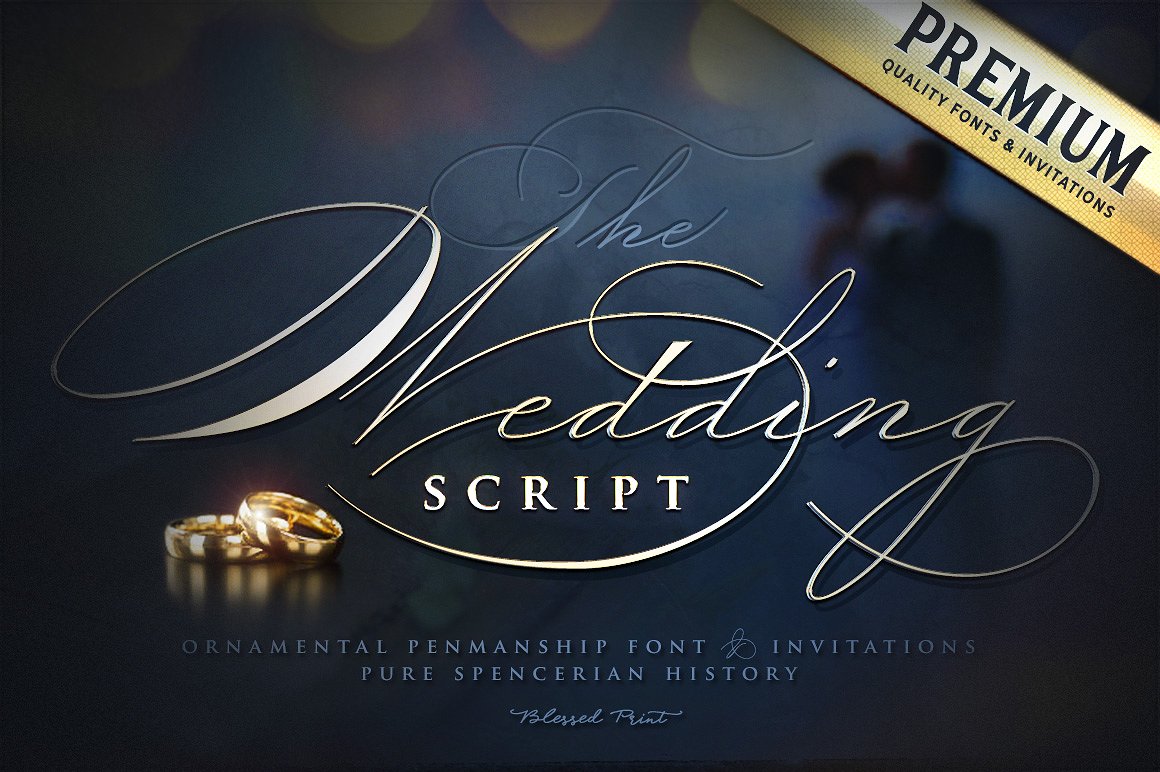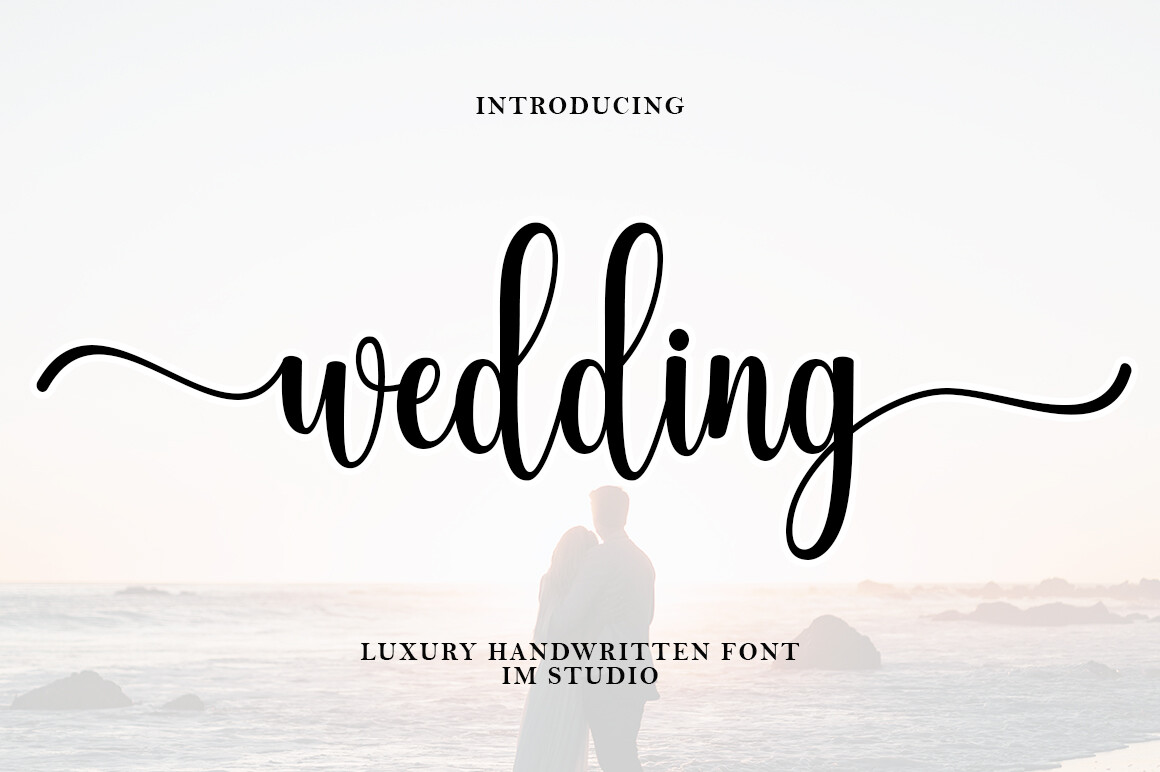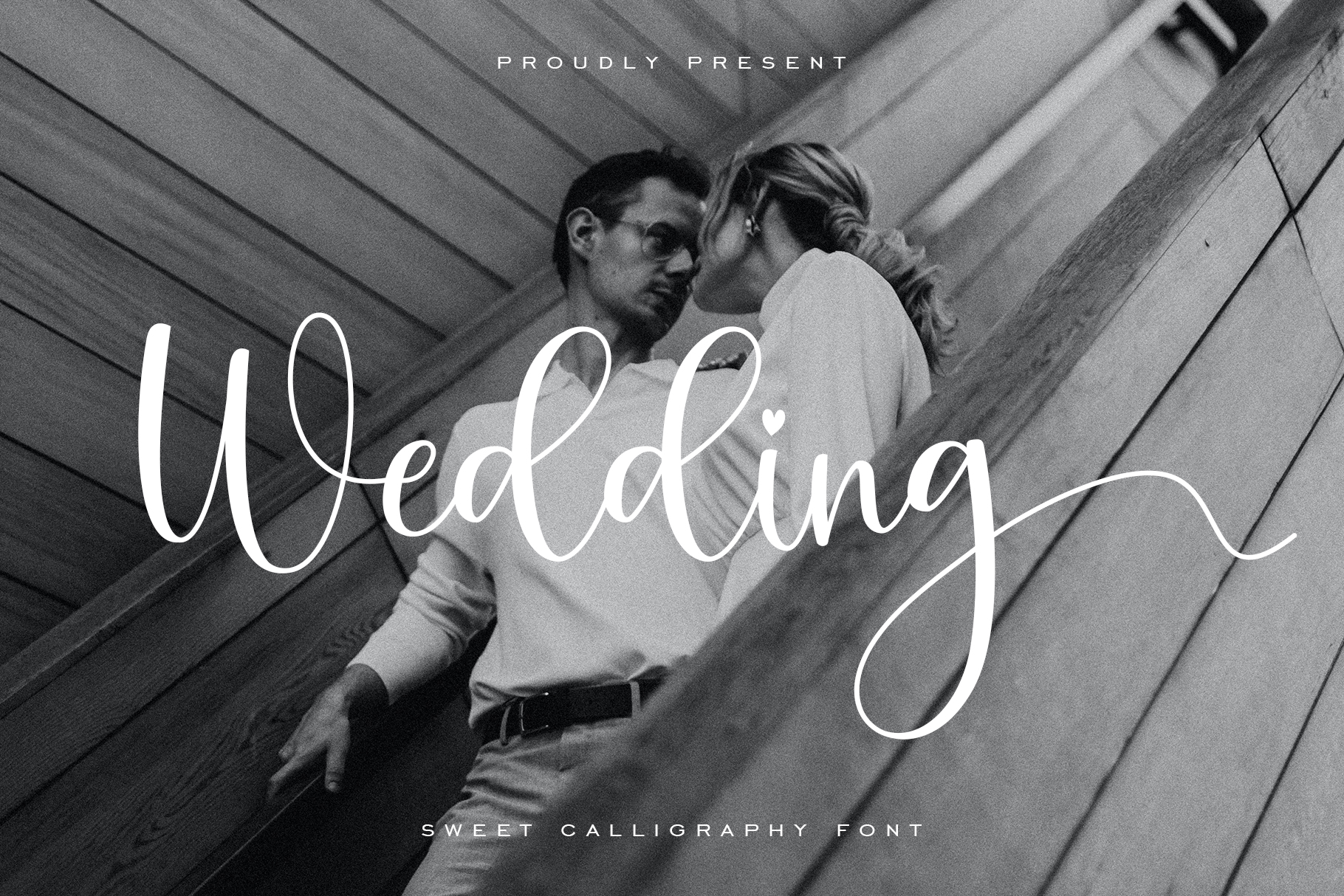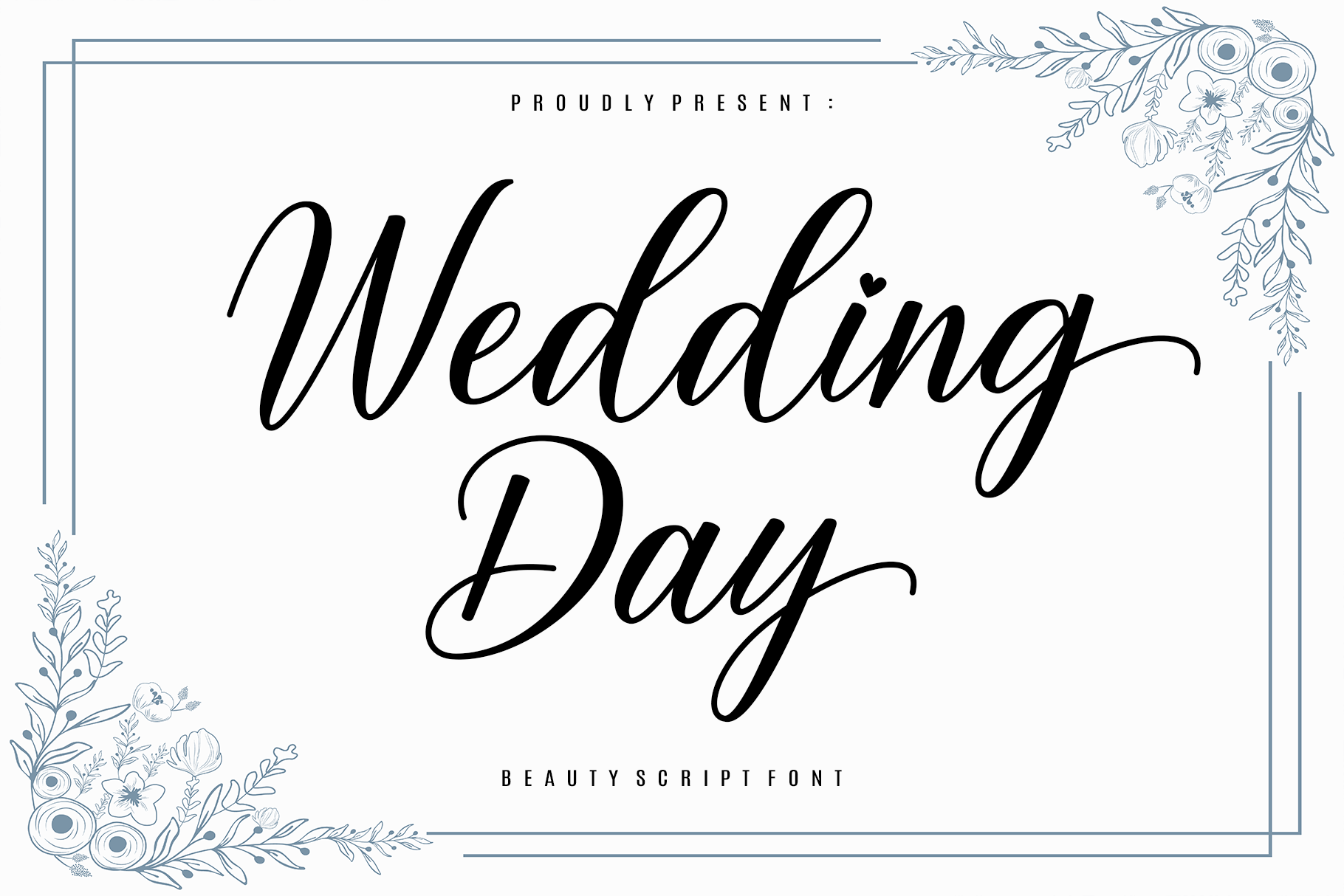
You’ve spent weeks planning every detail of the wedding stationery — the paper stock, the envelope liner, the wax seal color. But the font is still wrong. Too stiff. Too modern. Too generic. Too “template.” The right wedding font transforms everything — a simple “Thank You” becomes a heartfelt keepsake, and a plain invitation becomes something guests actually keep.
The problem is that most free wedding fonts look exactly like free wedding fonts. If you want something that genuinely feels elegant, romantic, and handcrafted — these premium wedding script fonts from Creative Fabrica are the answer. Every one below is PUA encoded (meaning all glyphs and swashes are fully accessible) and works in Canva, Illustrator, Photoshop, Cricut Design Space, and Silhouette Studio.
Best Wedding Fonts for Invitations, Logos & Stationery in 2026
Each font below has been selected for its romantic elegance, professional quality, and versatility across wedding invitations, thank you cards, logos, signage, and digital designs. Whether you’re designing your own stationery or building a wedding brand for clients — these fonts deliver.
Wedding Enchanting Font
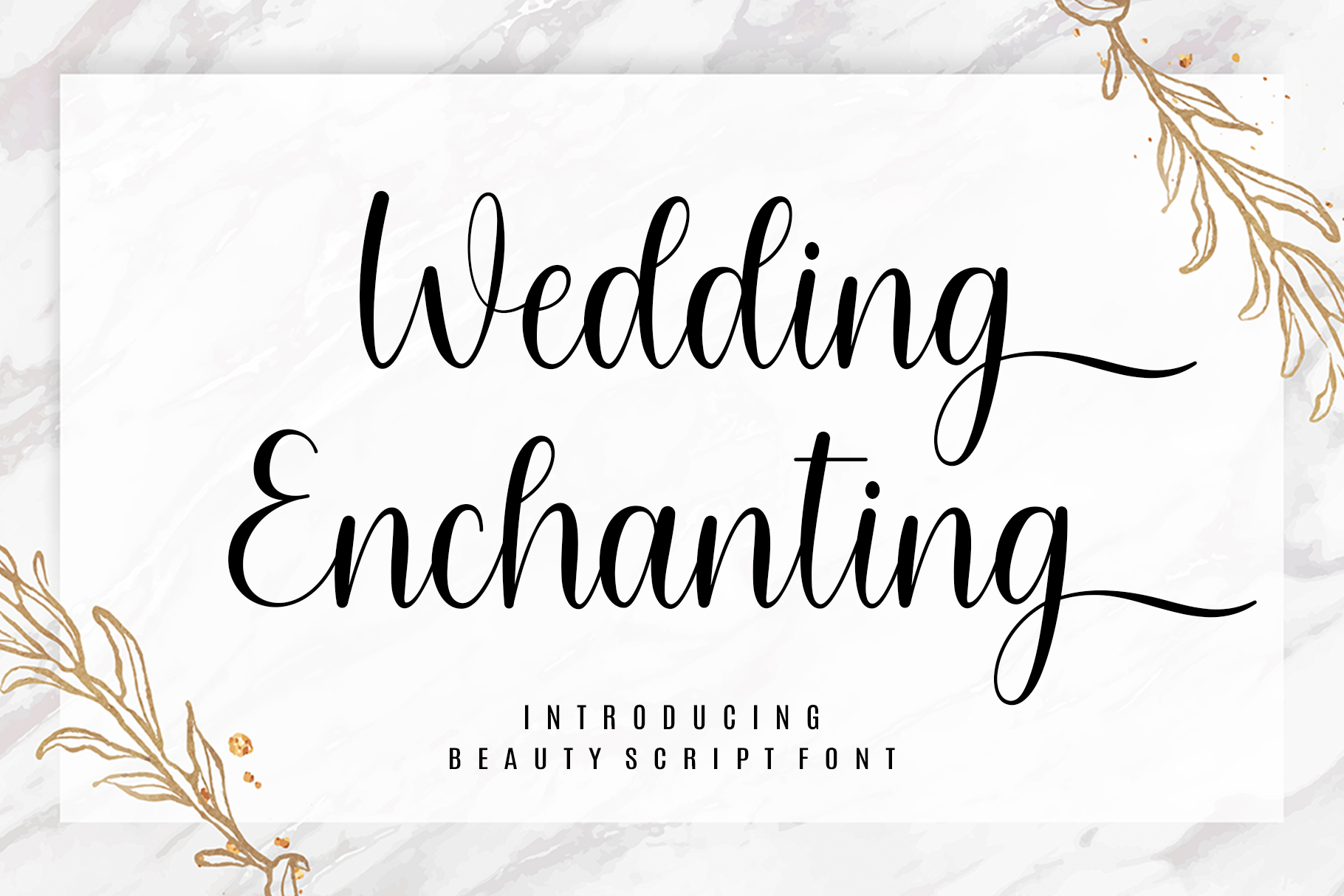
A captivating blend of sophistication and beauty — Wedding Enchanting radiates charm and grace in every letterform. The flowing script balances delicate elegance with a timeless, enduring style that works equally well on formal wedding invitations and heartfelt personal notes. If you want a font that amplifies narratives of love and everlasting celebration, this is it. Subtle enough to feel refined, expressive enough to feel truly romantic.
- Elegant script with delicate, flowing letterforms
- Perfect for wedding invitations, cards, quotes, and branding
- Timeless romantic style — works for classic and modern wedding aesthetics
Violyn Wedding Thivoria — Luxury Calligraphy Typeface
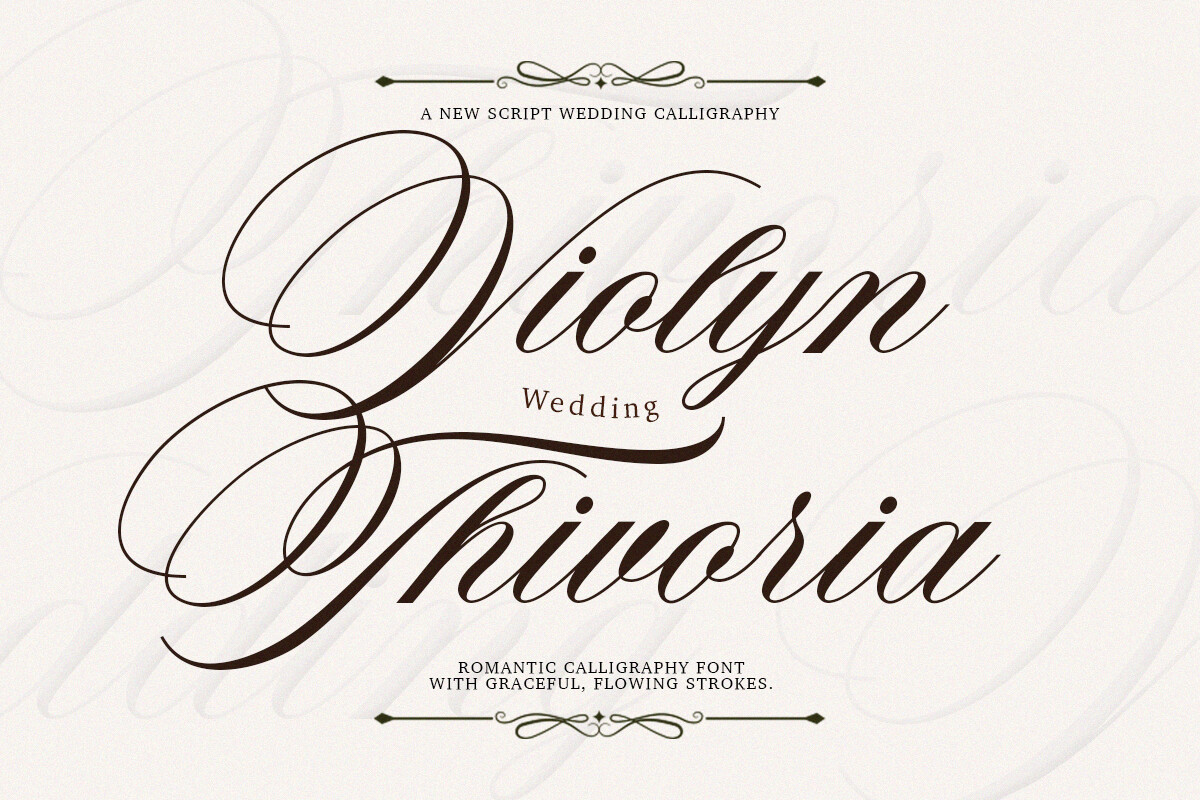
This is the font for high-end projects where nothing less than perfect will do. Violyn Wedding Thivoria is a refined calligraphy typeface that blends timeless romantic charm with modern luxury — every stroke and curve reflects softness, elegance, and a premium handcrafted feel. It comes with a rich set of stylistic alternates and custom ligatures, giving you the flexibility to create unique, highly personalized compositions that look unlike anything else.
- Refined calligraphy with graceful, flowing letterforms
- Includes stylistic alternates and custom ligatures for unique compositions
- Ideal for luxury wedding invitations, high-end branding, and fashion editorials
- Inspired by classic Spencerian script with modern sophistication
- Perfect for exclusive logos, premium packaging, and bespoke stationery
Wedding Dream Font
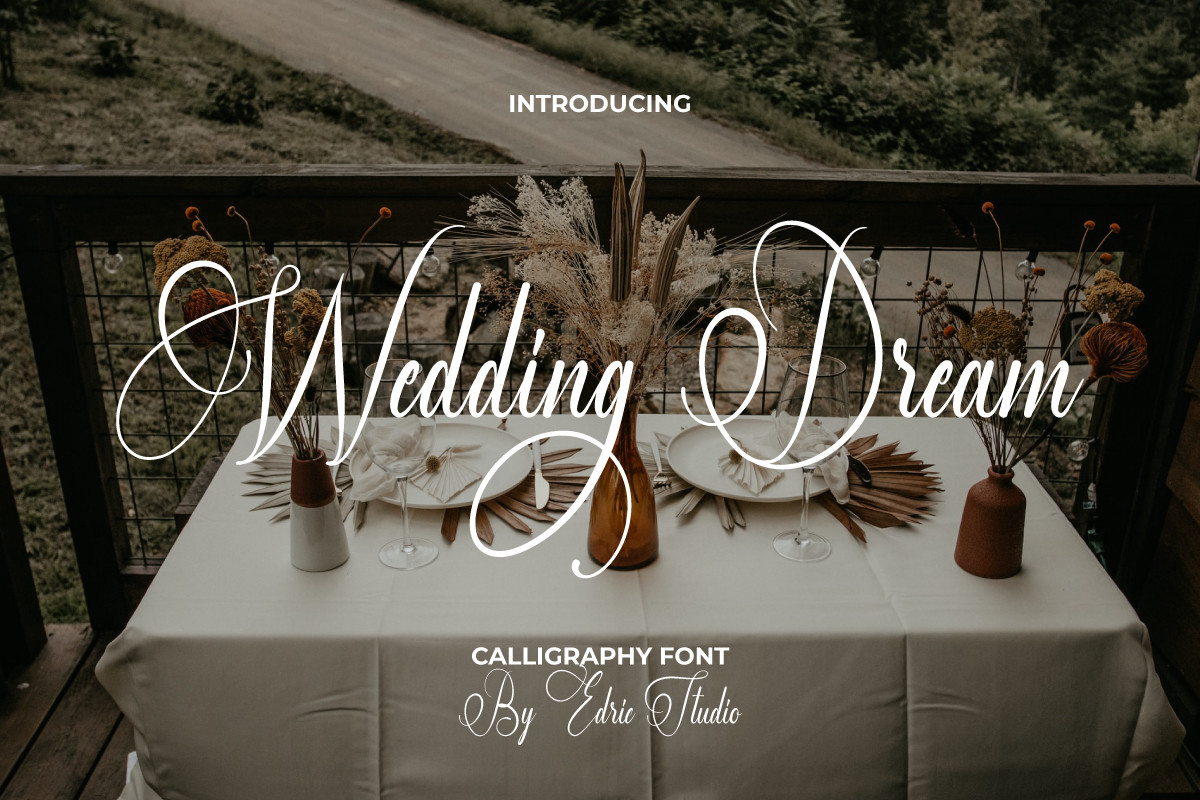
Wedding Dream is one of those rare fonts that feels equally charming and elegant — never tipping too far into either direction. It looks stunning on wedding invitations and thank you cards, but it’s just as effective on quotes, greeting cards, logos, and business cards. Anywhere your design needs a genuine handwritten touch, this font delivers. PUA encoded for full access to all glyphs and swashes without needing special software.
- Charming yet elegant — the perfect balance for wedding and lifestyle design
- Works beautifully for invitations, thank you cards, quotes, and logos
- Classic handwriting feel with a clean, modern finish
Elegant Wedding Font
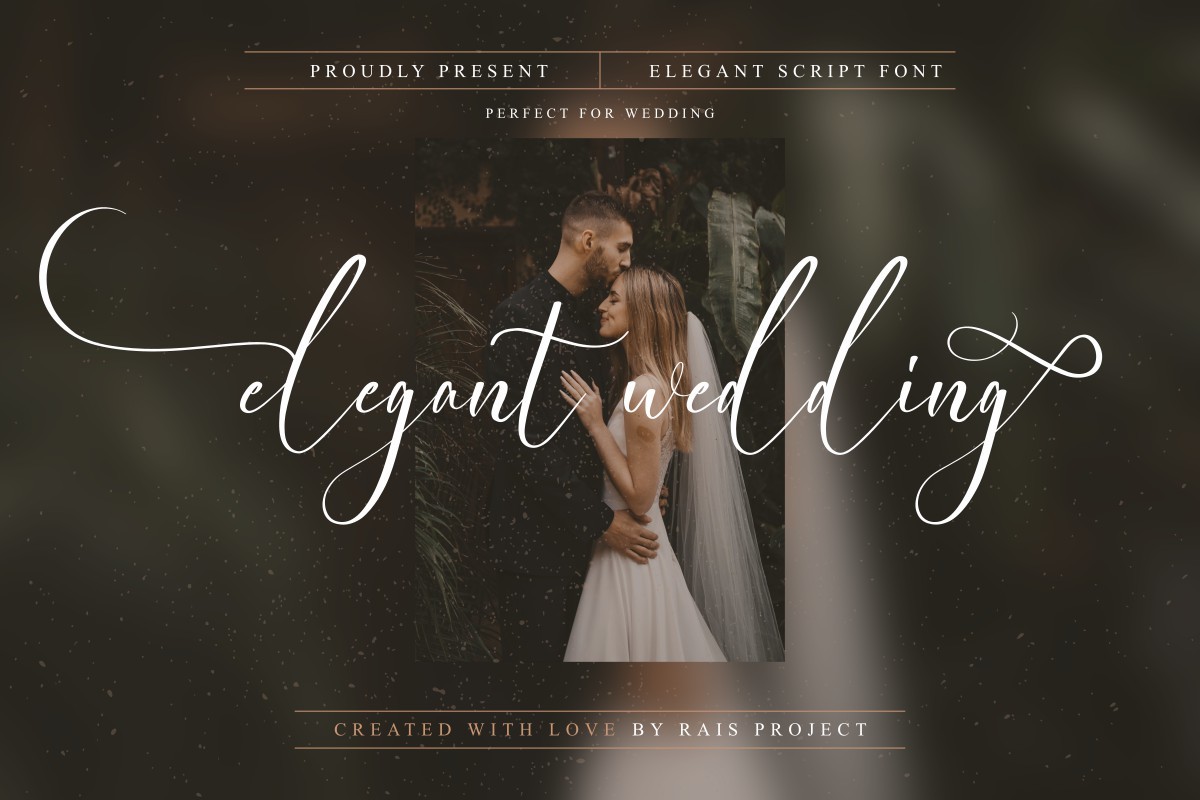
Delicate, fashionable, and effortlessly refined — Elegant Wedding is a script font that works beautifully beyond just wedding stationery. Its clean, flowing letterforms make it an excellent choice for branding projects, logos, t-shirt printing, and creative product packaging anywhere you need a touch of elegance. PUA encoded for complete access to every glyph and swash, making it easy to build truly custom typographic compositions.
- Delicate script with fashionable, refined character shapes
- Versatile — works for logos, branding, t-shirts, and packaging
- Handwritten feel with a polished, professional finish
- Perfect for luxury and fashion-forward design projects
The Wedding Signature Font
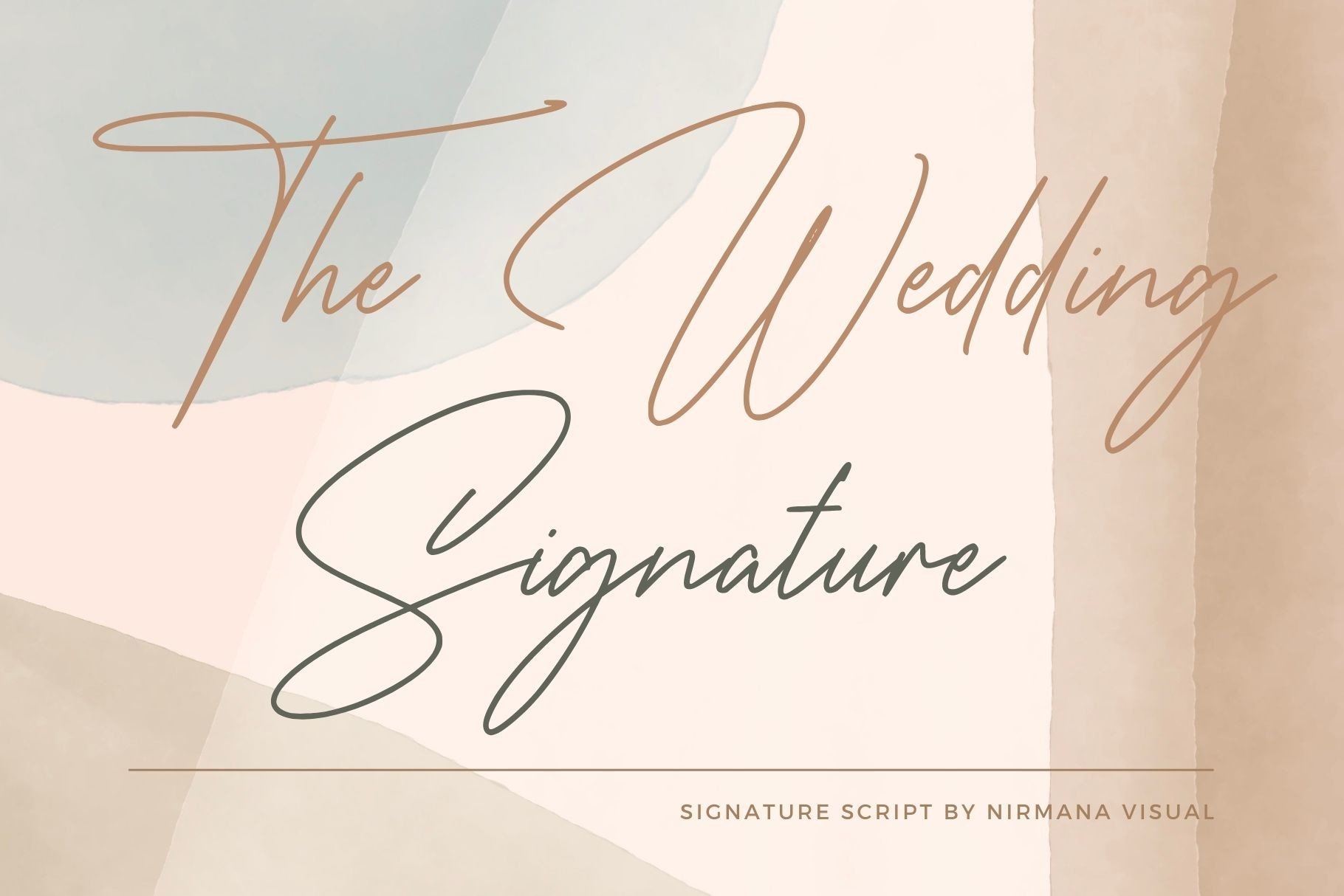
Dazzling, neatly crafted, and highly detailed — The Wedding Signature is a script font with the kind of expressive personality that makes every word feel intentional. Its romantic, feminine letterforms make it a natural choice for bridal and boho wedding aesthetics, but the refined craftsmanship means it works equally well for upscale events, editorial design, and signature-style logos. A versatile asset that will earn its place in your permanent font library.
- Cricut and Silhouette projects: Any PUA encoded font on this list works — Wedding Enchanting and Wedding Day both cut especially cleanly
- Boho and romantic aesthetics: The Wedding Signature — its expressive, flowing letterforms suit relaxed, garden-style weddings perfectly